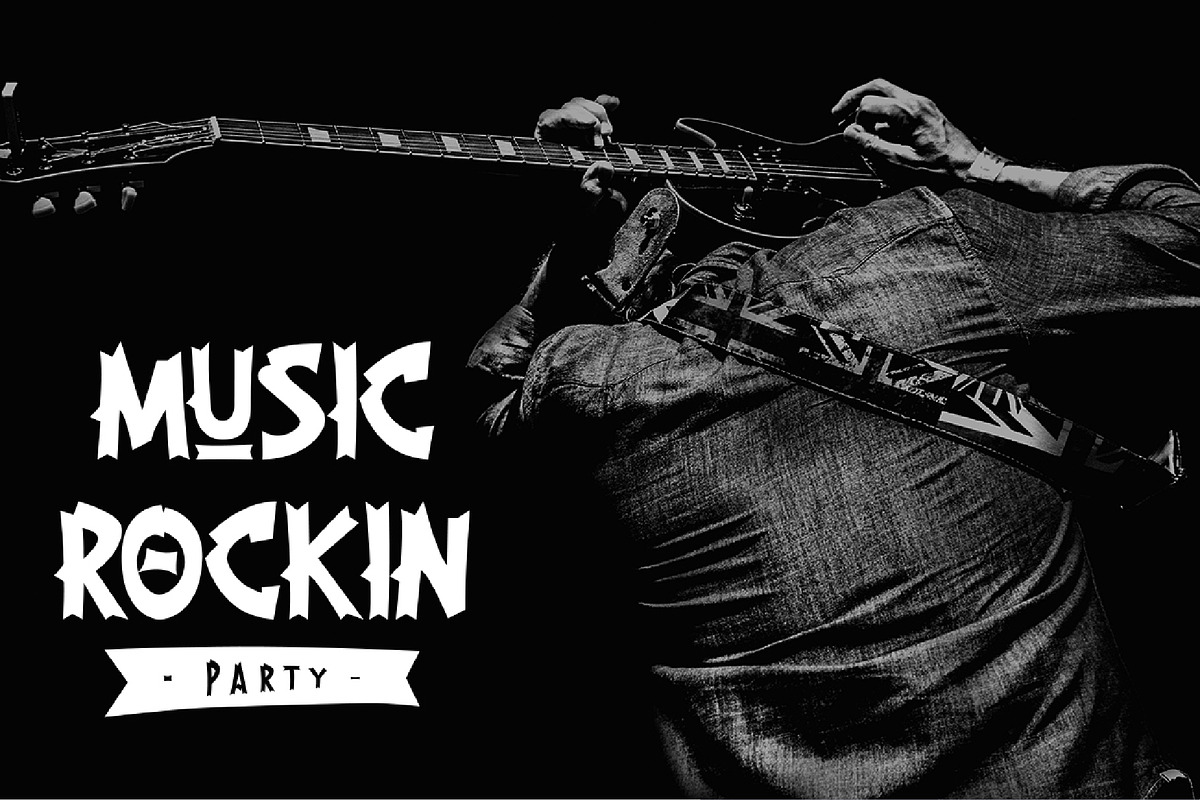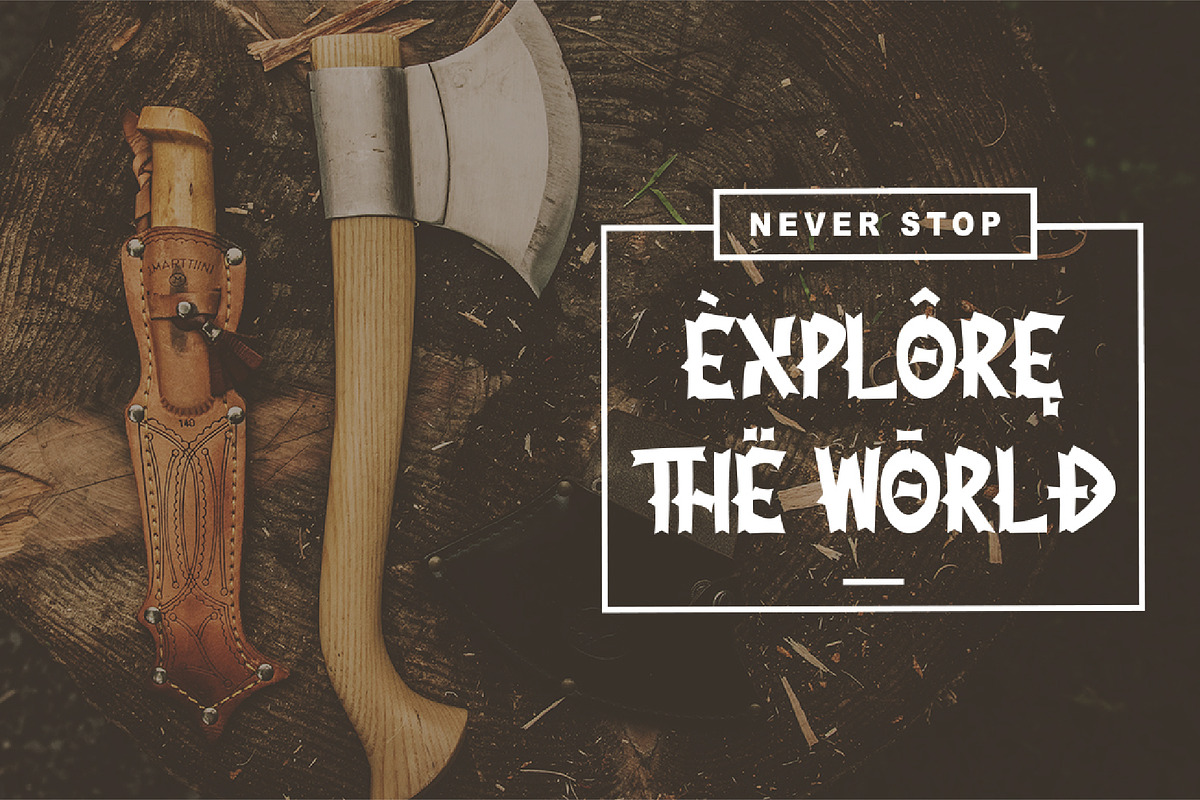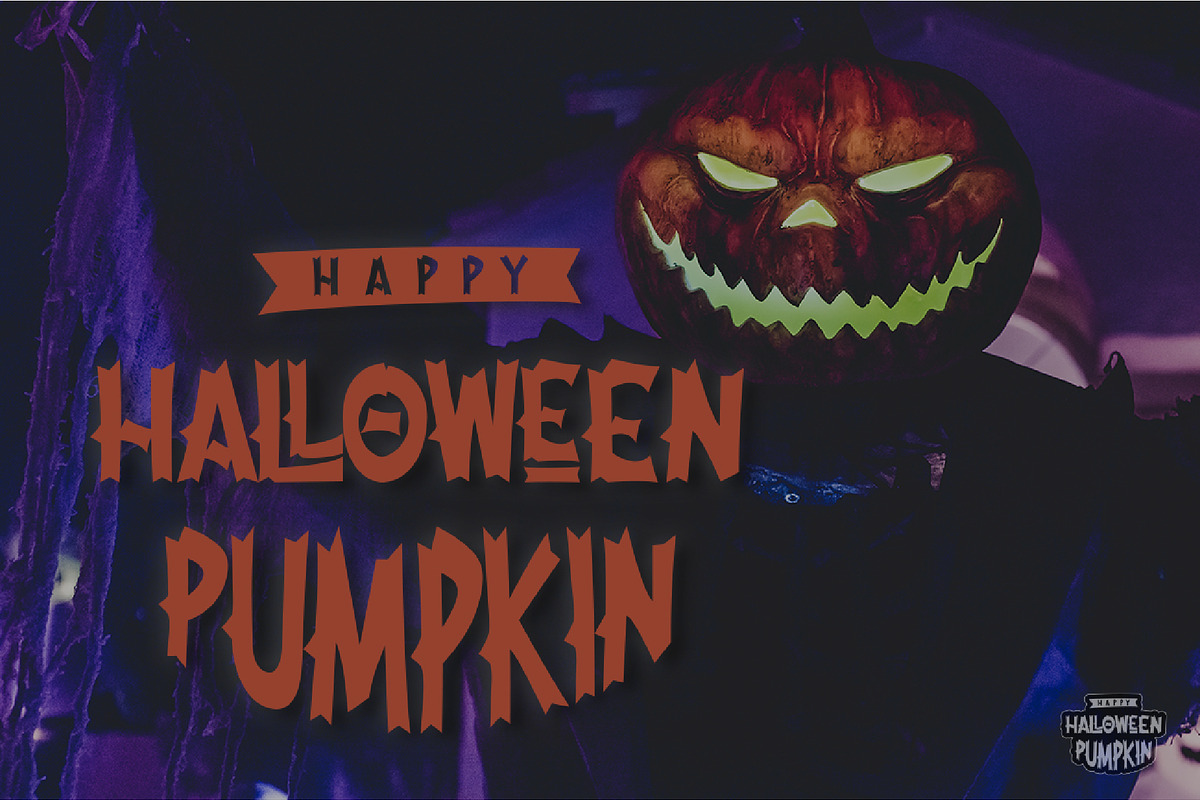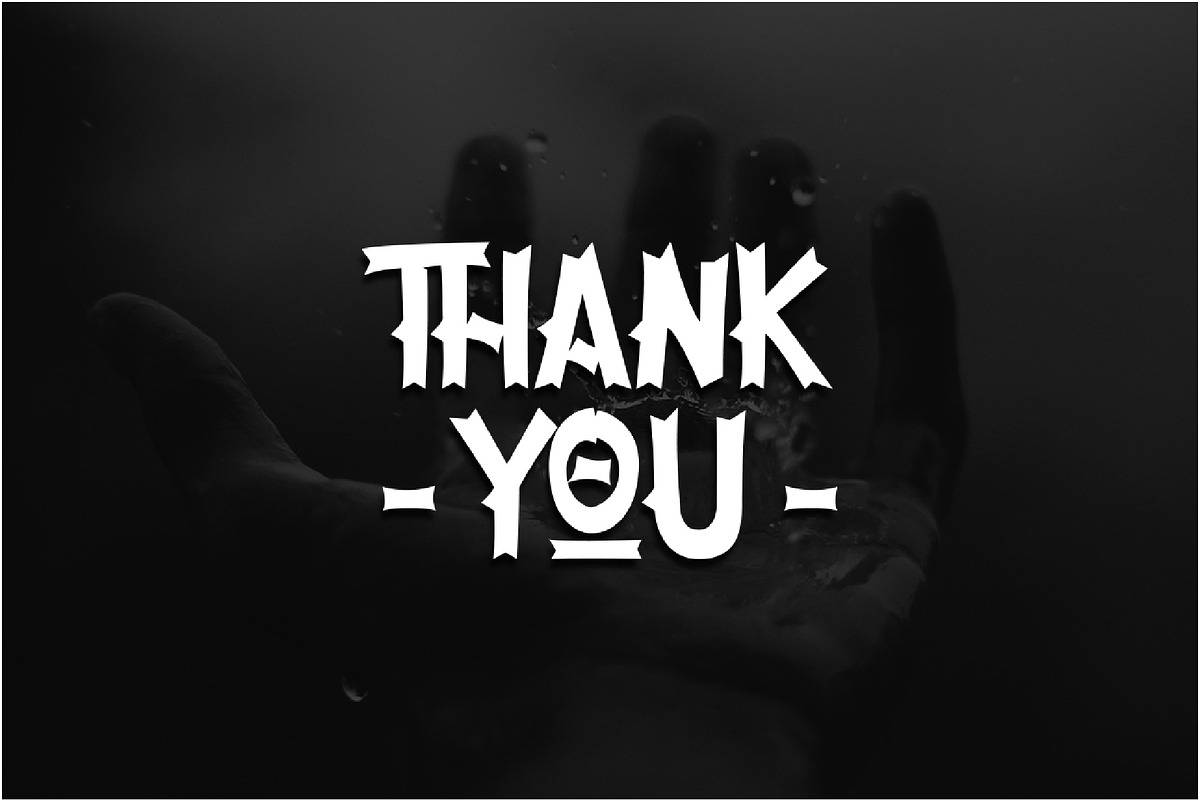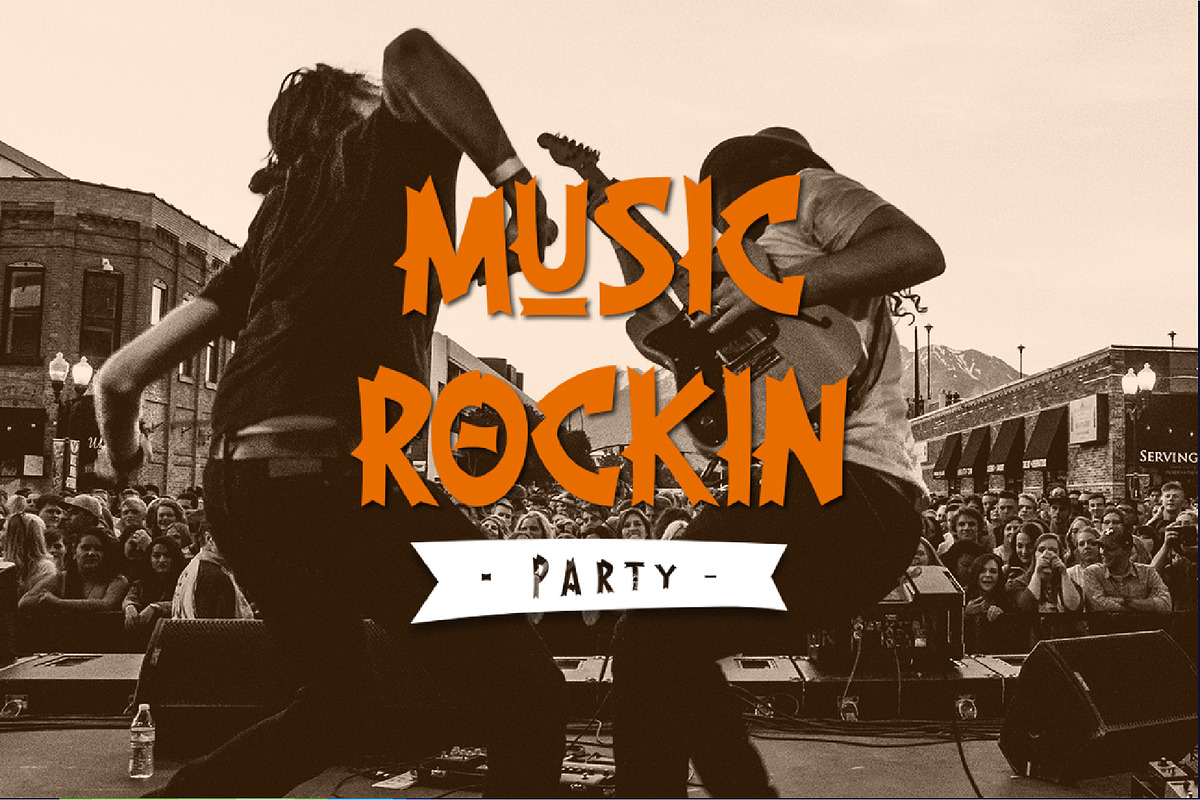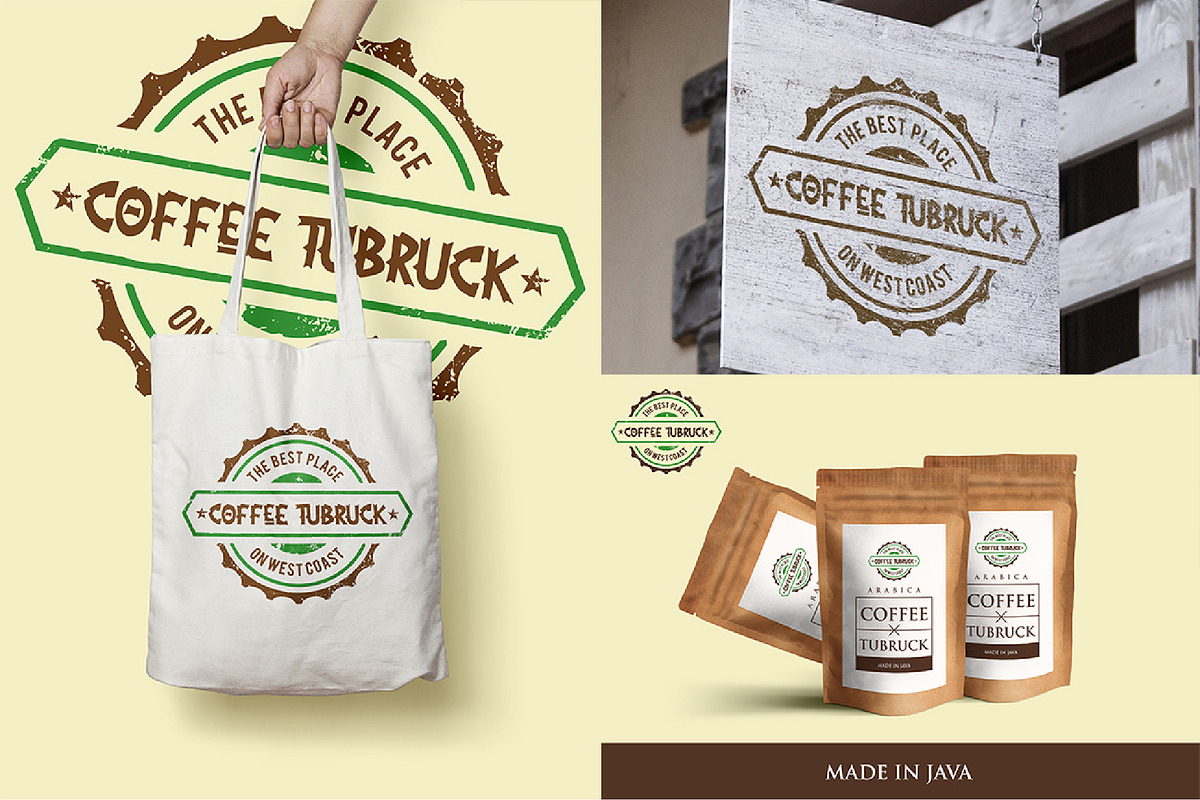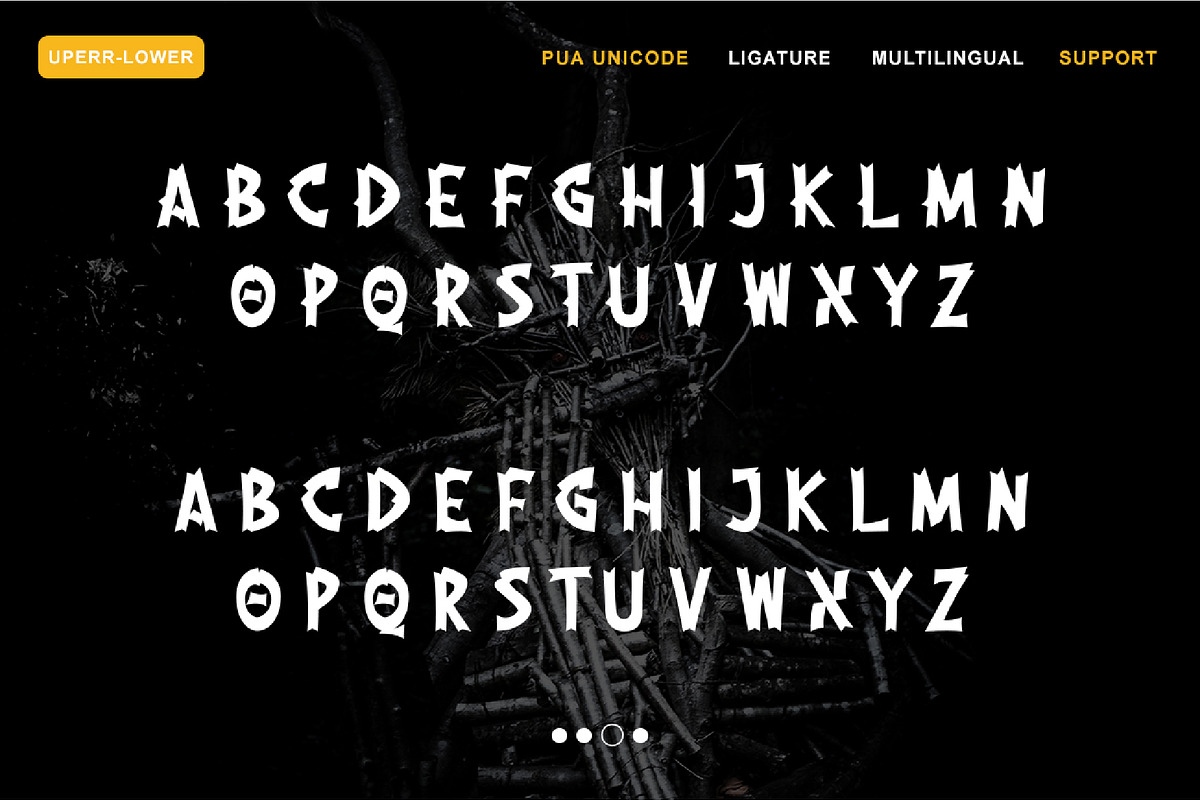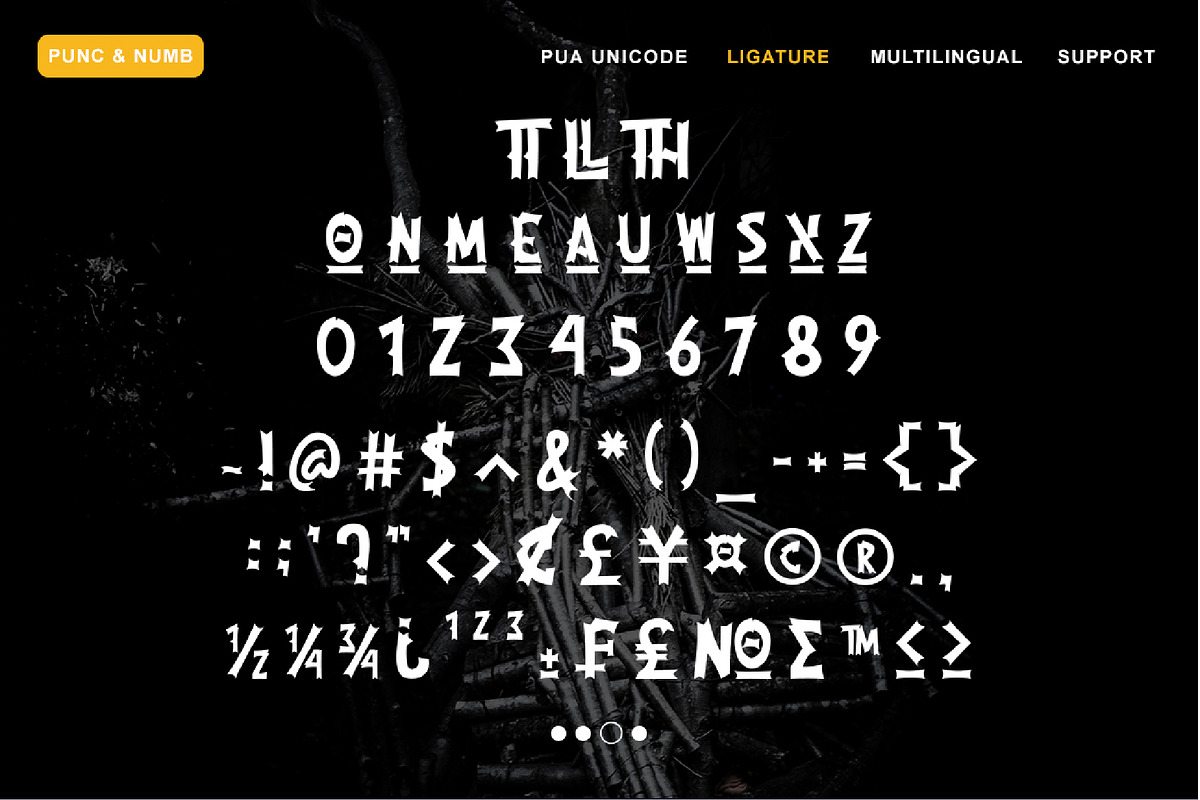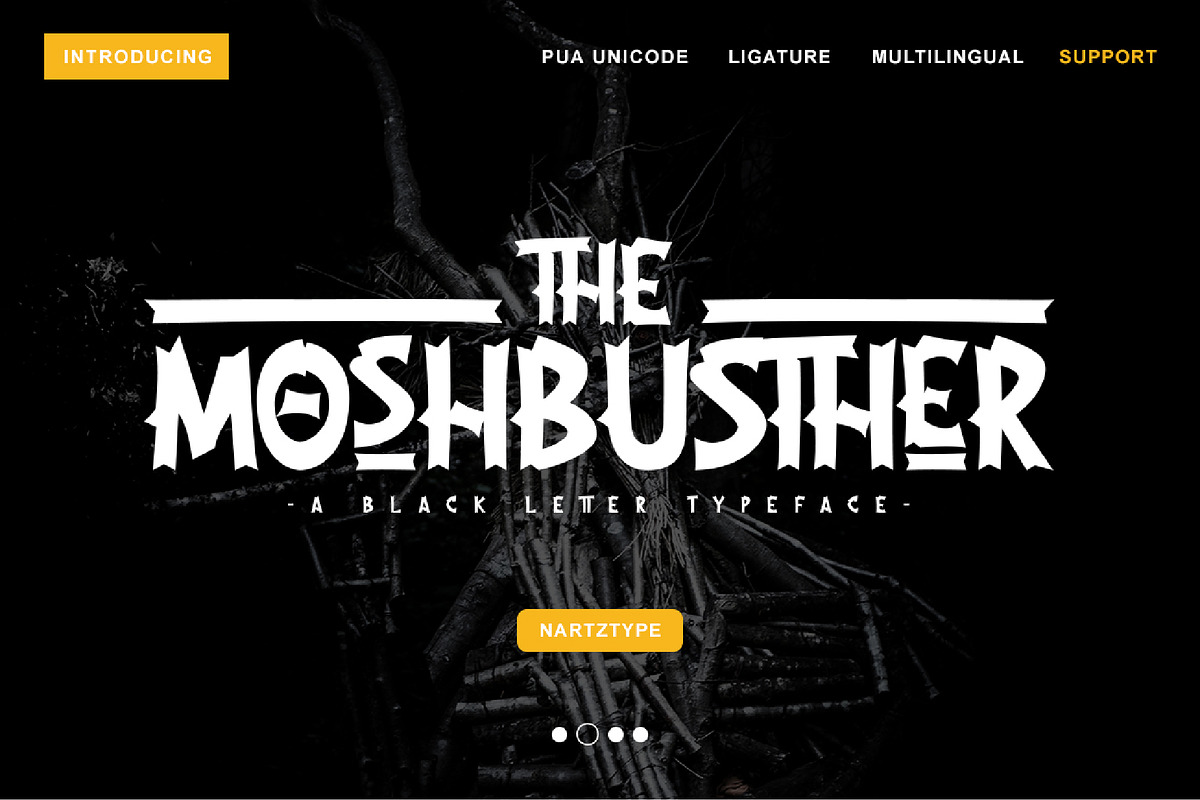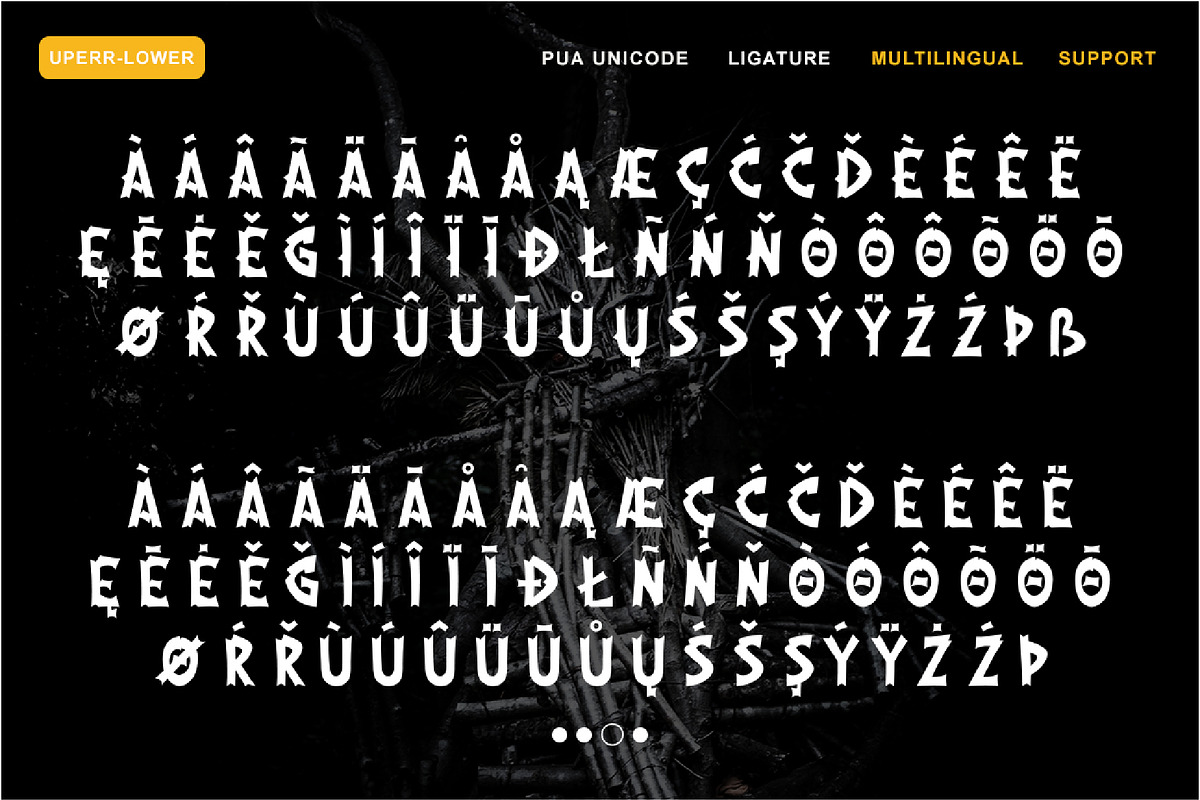
The Moshbusther
This font is inspired by most of deathmetal logo. Heartless is great looking, badass, and each character was designed with great compotition. Of course, this font is very suitable for you that like deathmetal music, design, your clothing, logo, and many others.